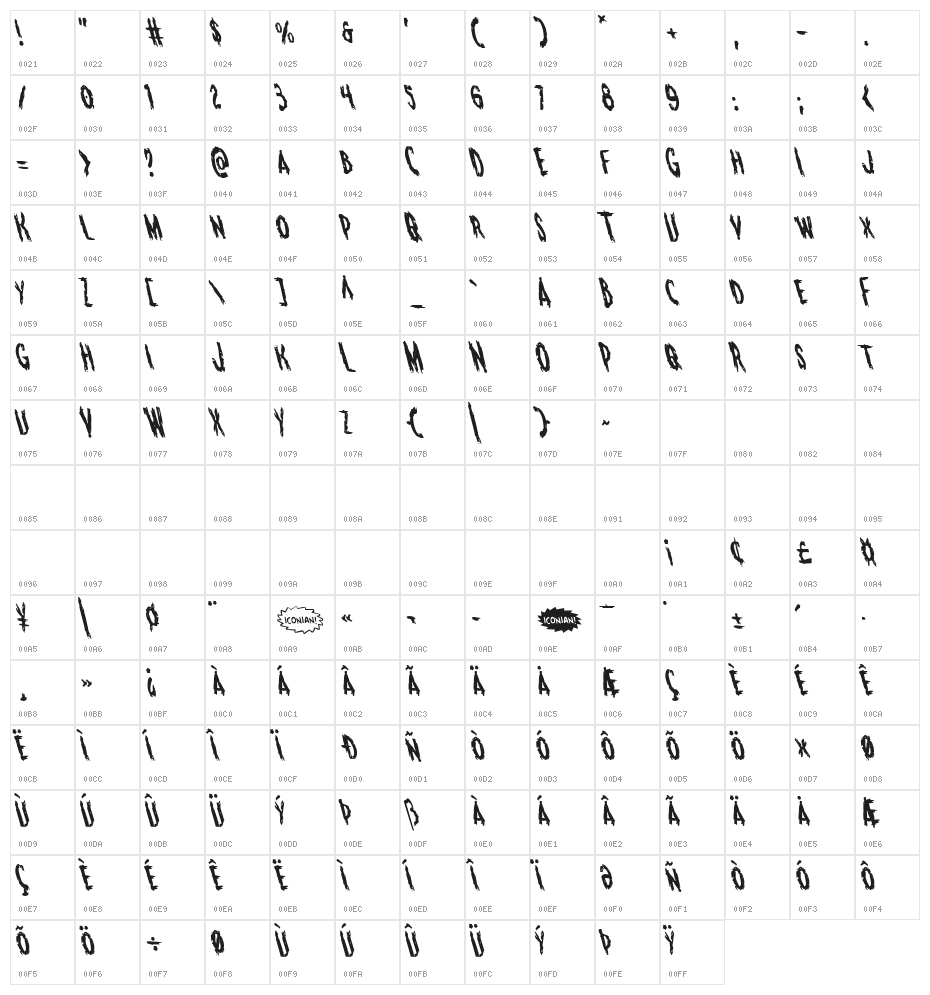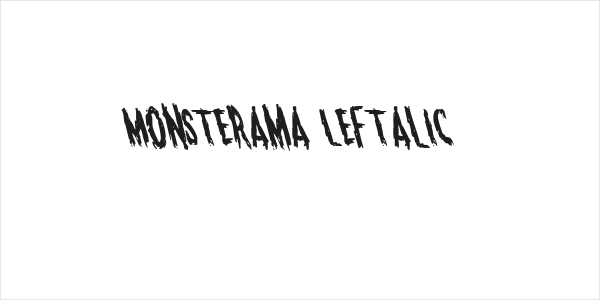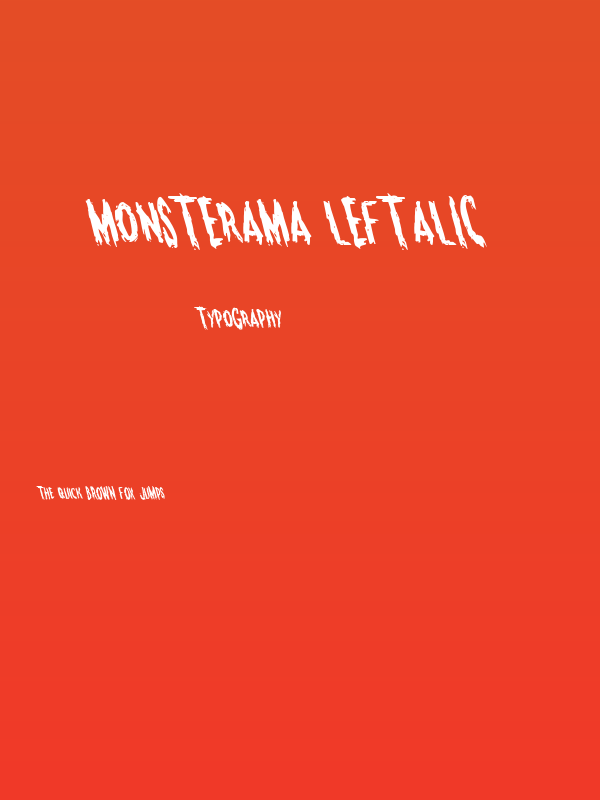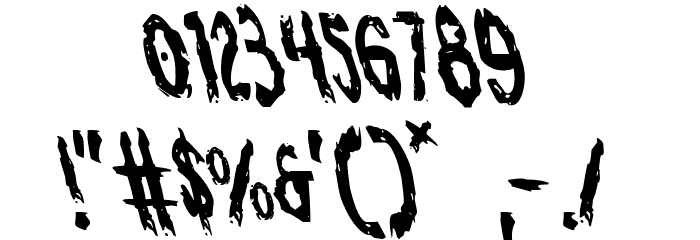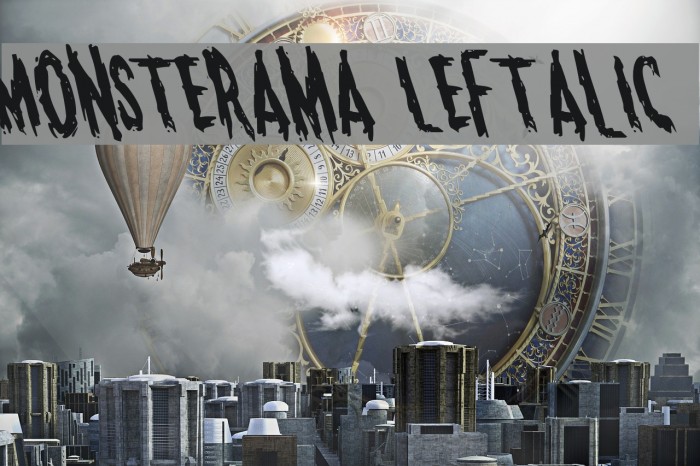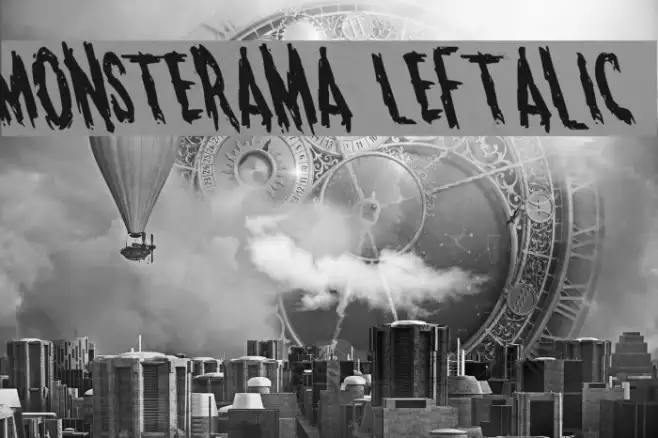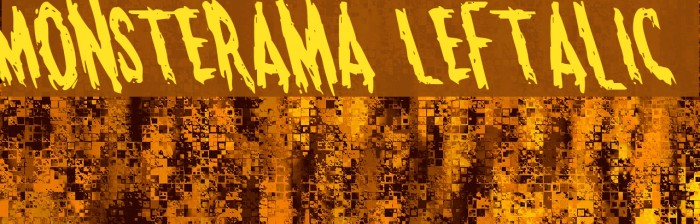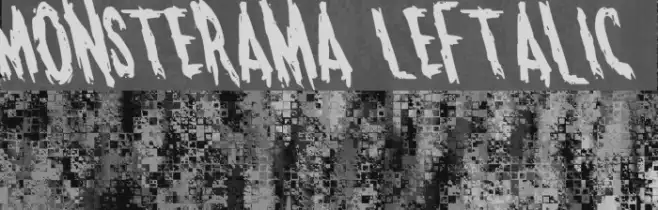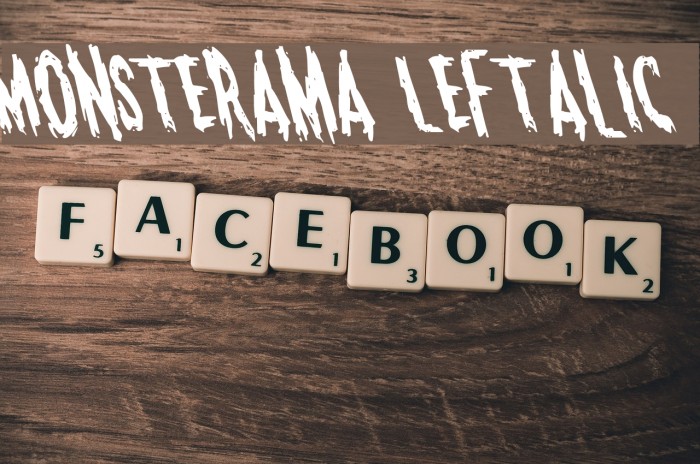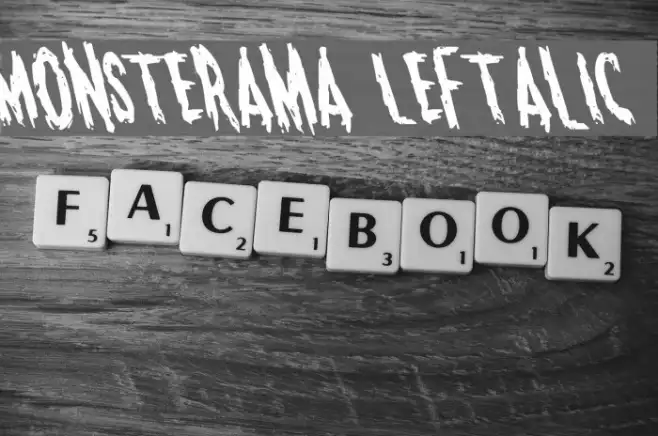
Monsterama Leftalic Font
Monsterama Leftalic Description
This font features a bold and jagged design, reminiscent of horror or thriller themes. The characters have an irregular, distressed appearance, with rough edges and uneven strokes that create a sense of chaos and intensity. The uppercase and lowercase letters maintain a consistent style, with exaggerated serifs and a slightly slanted orientation, adding to the dynamic and unsettling feel. Numbers and special characters follow the same aesthetic, ensuring a cohesive look across all glyphs. This font is ideal for projects that require a dramatic and eye-catching typeface.